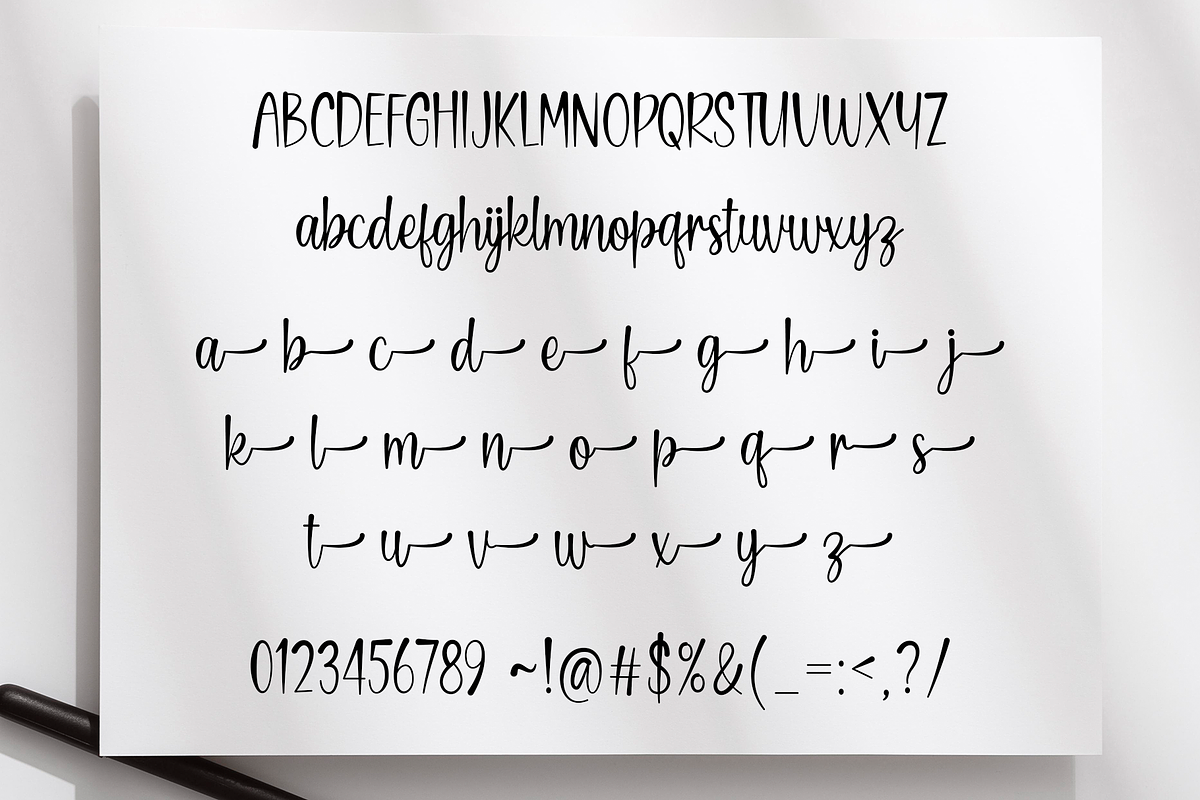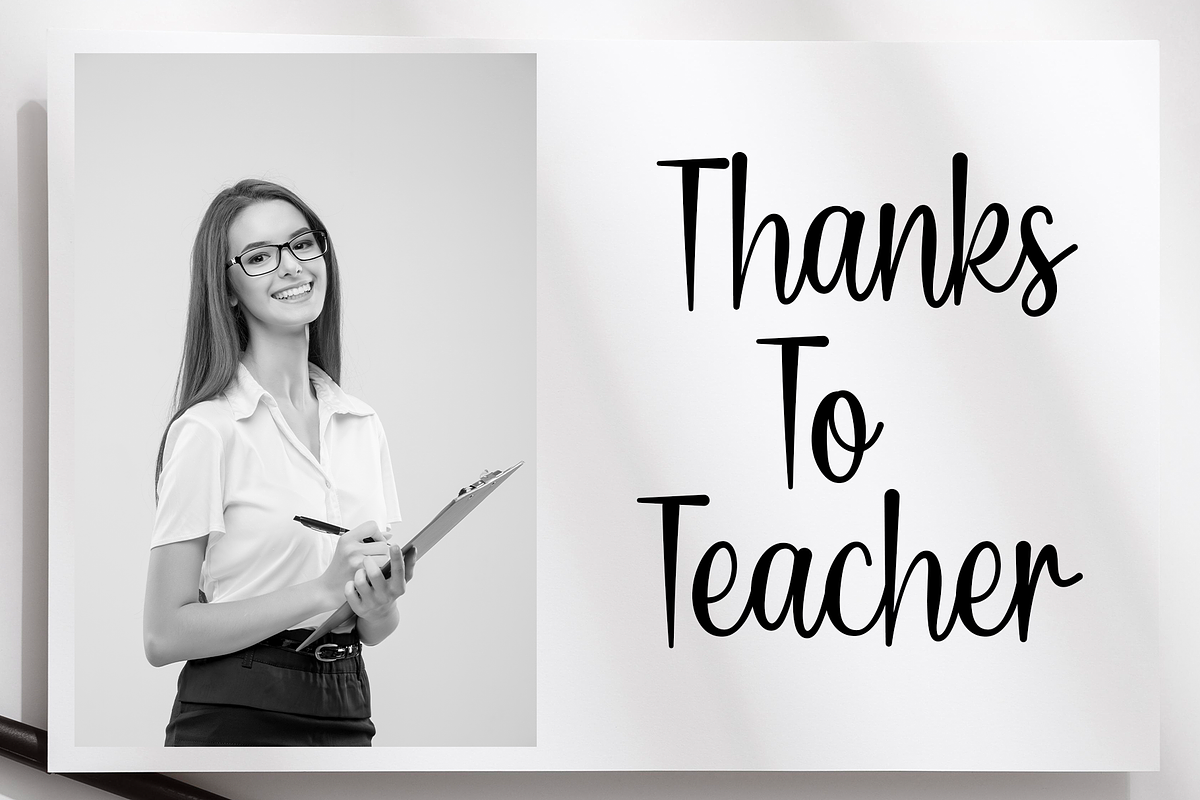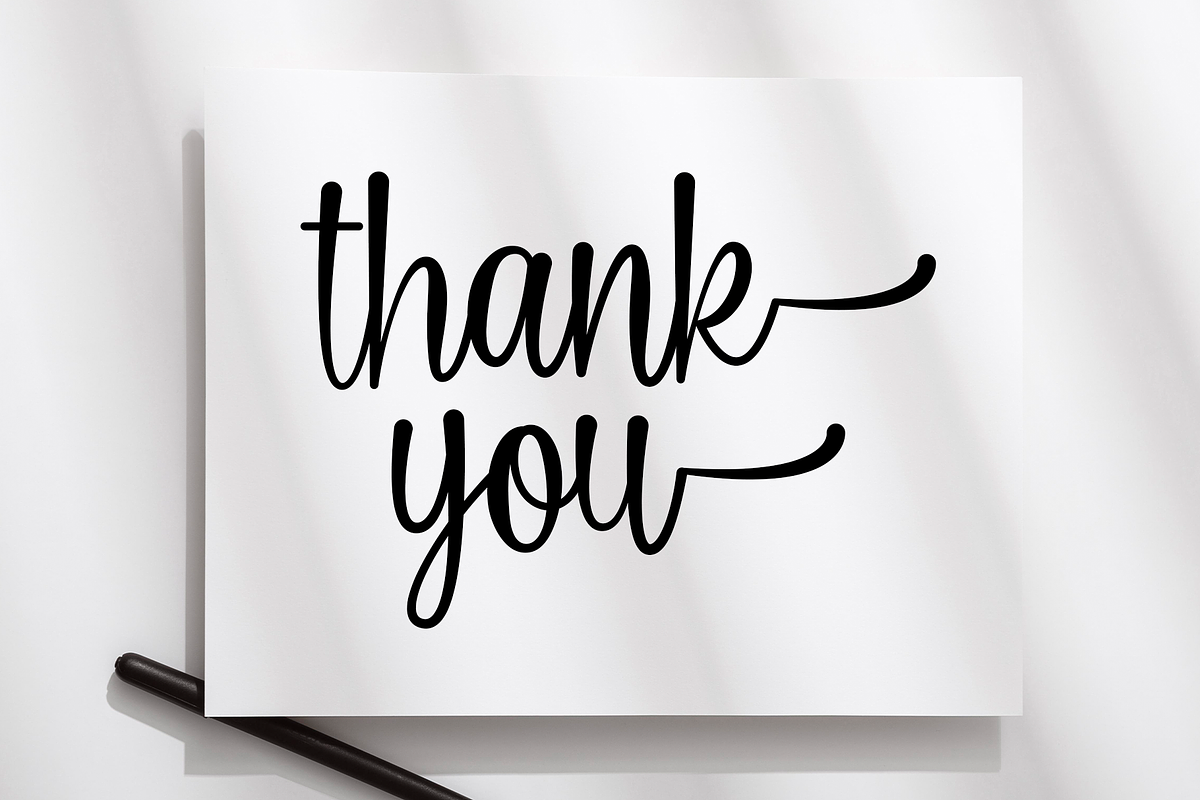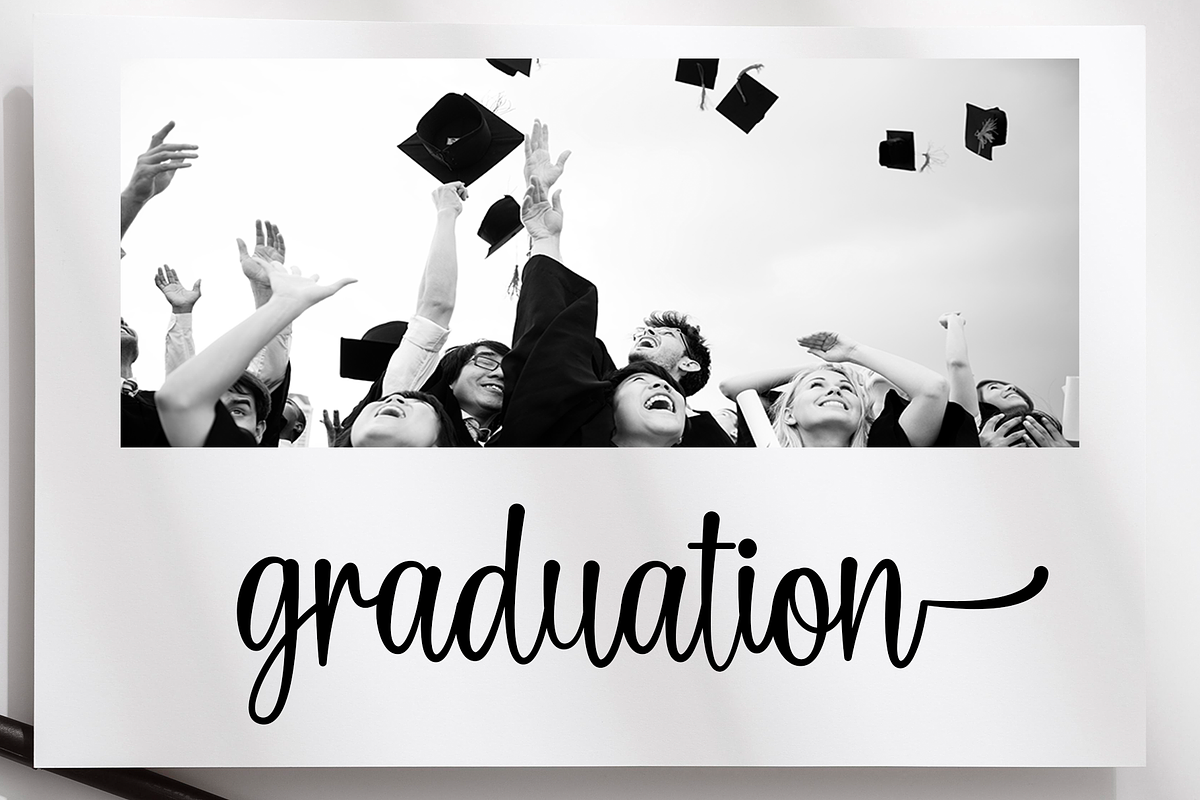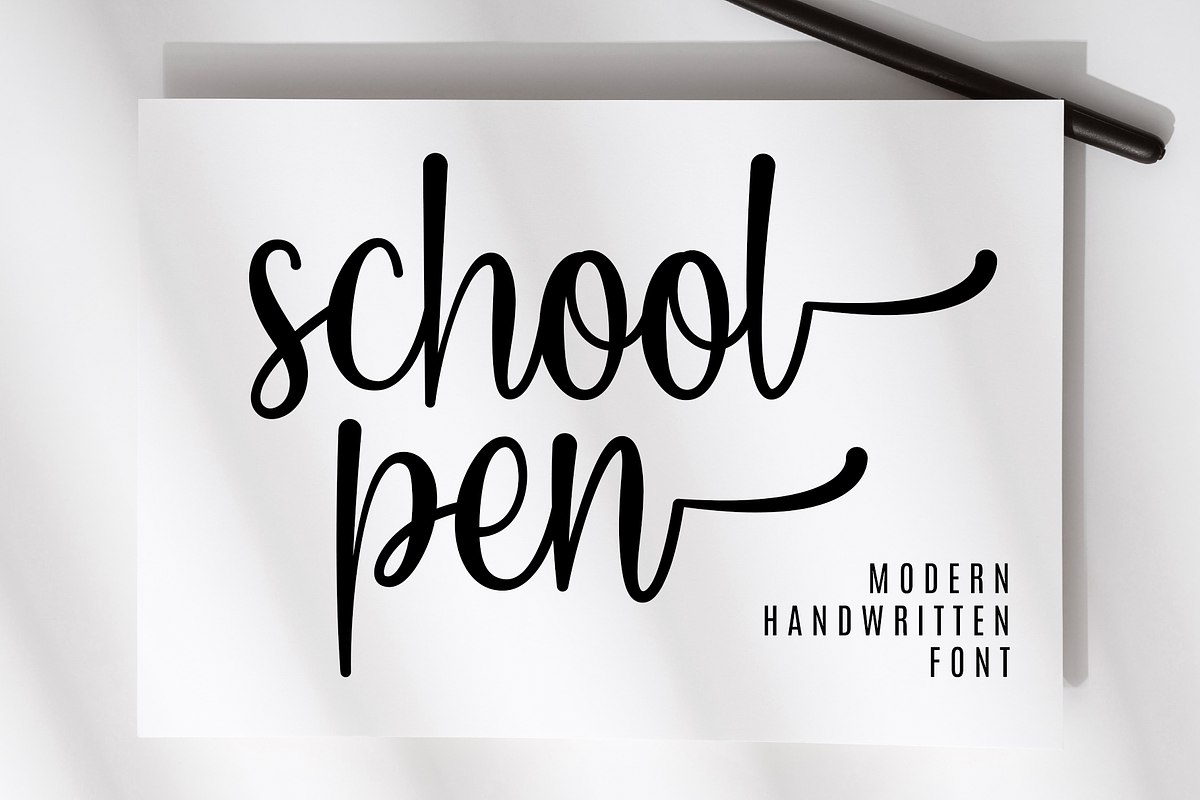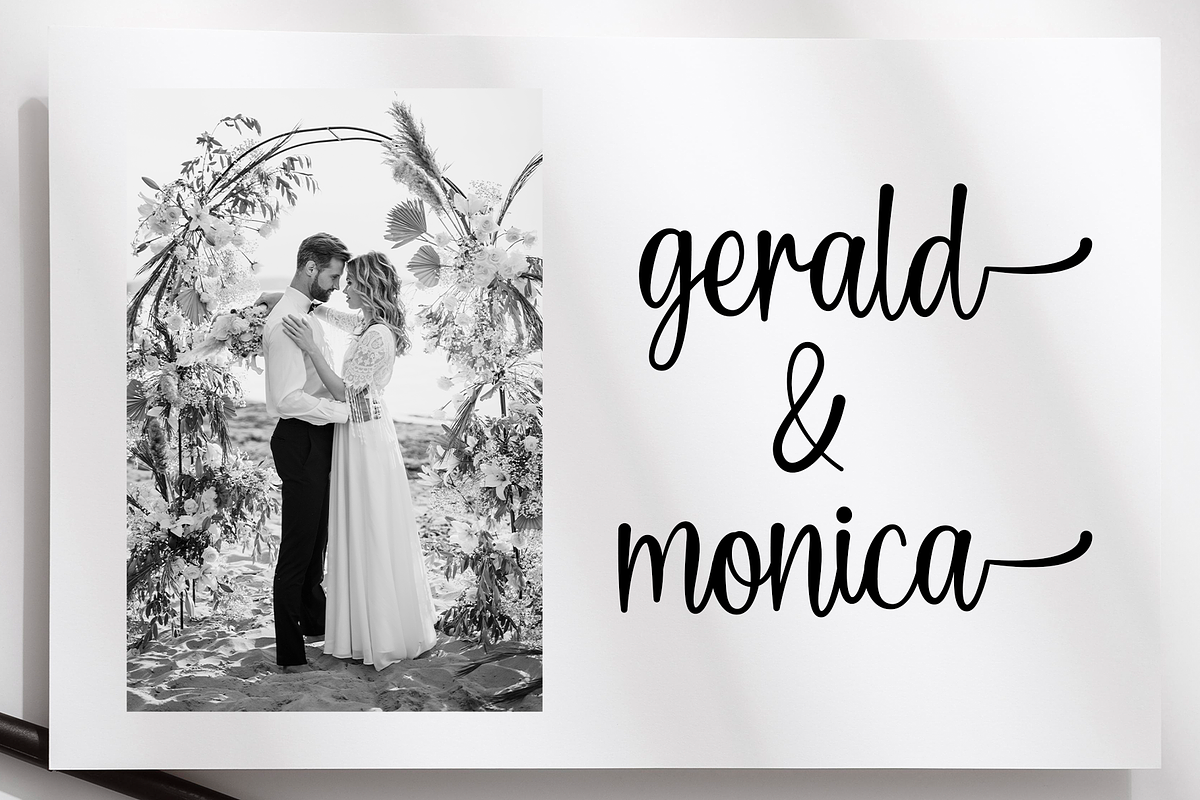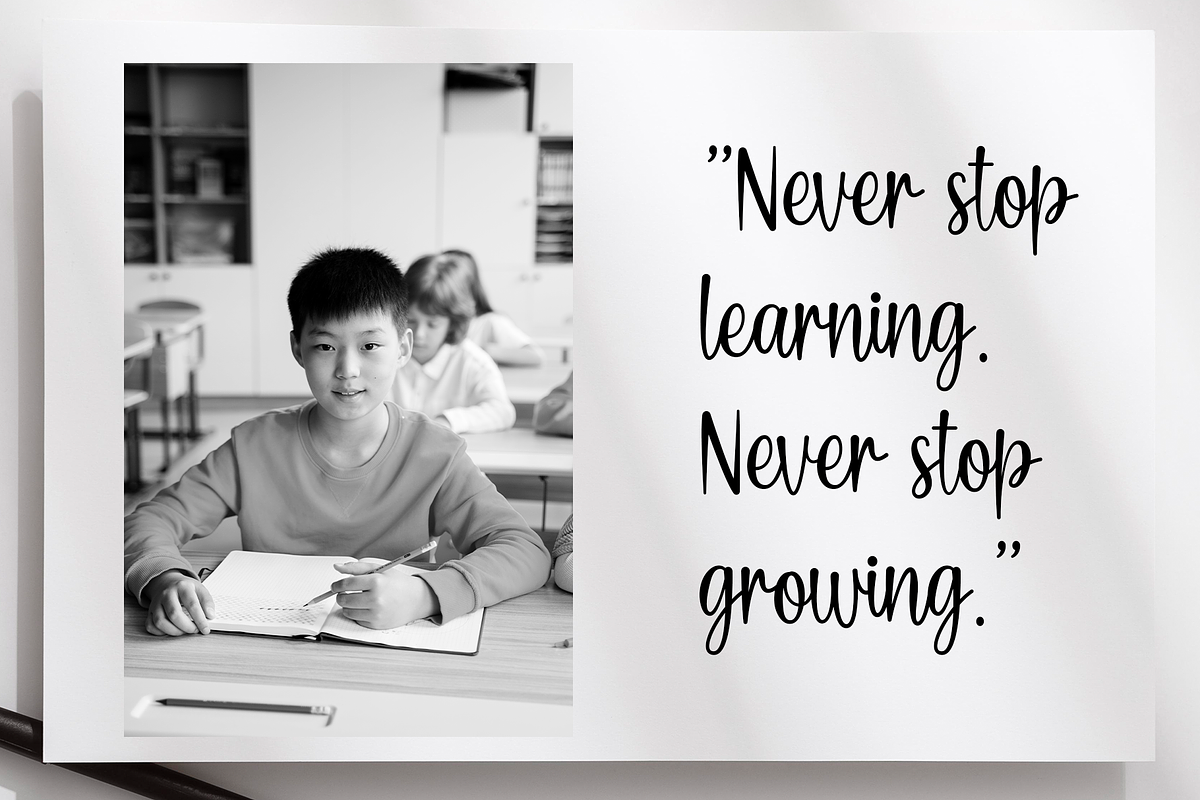
School Pen - Modern Handwritten Font
School Pen is a friendly handwriting font with natural and soft strokes. looks attractive and beautiful when looked at, and forms a memory in every project that is worked on. this will be fun!